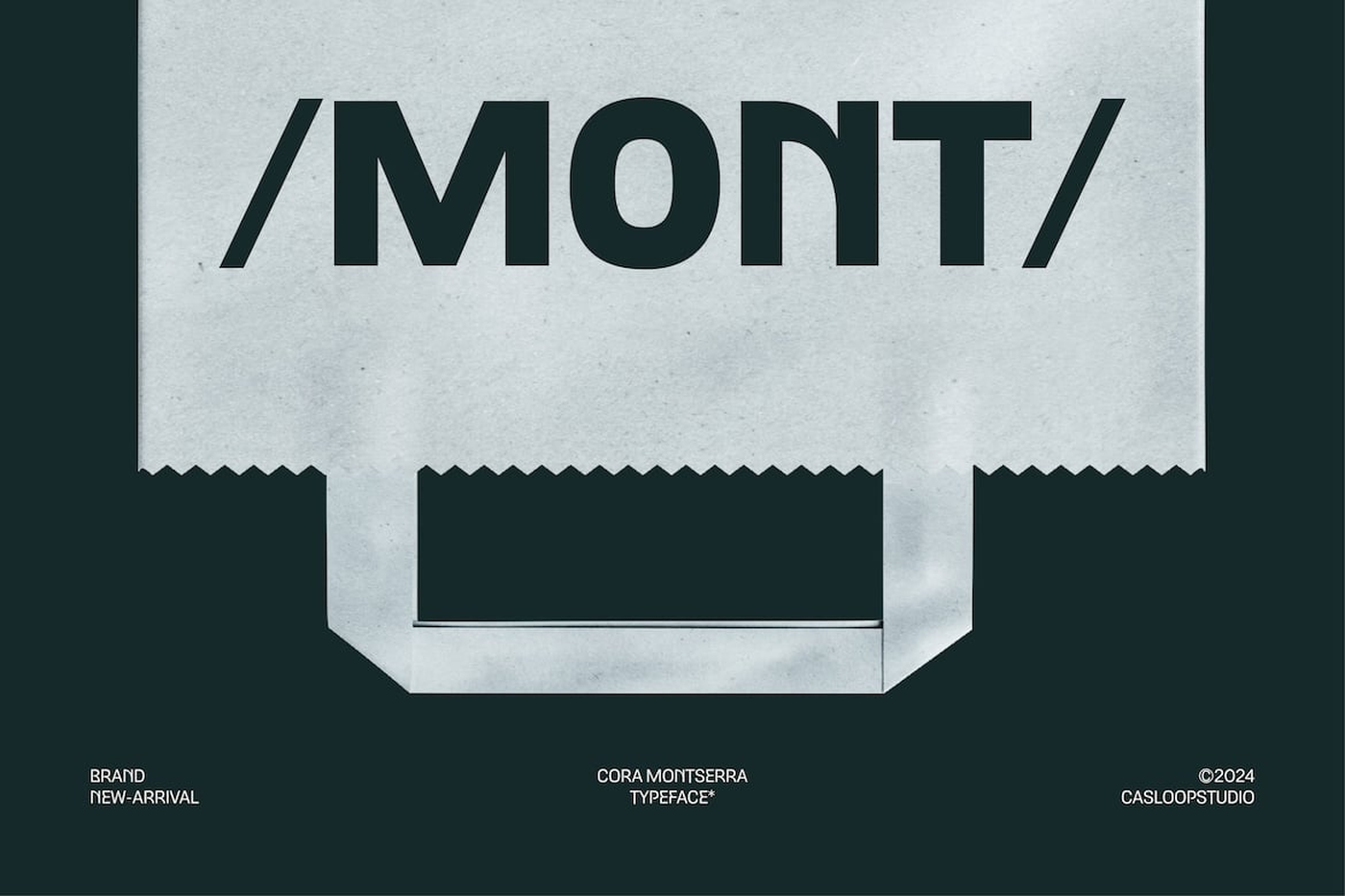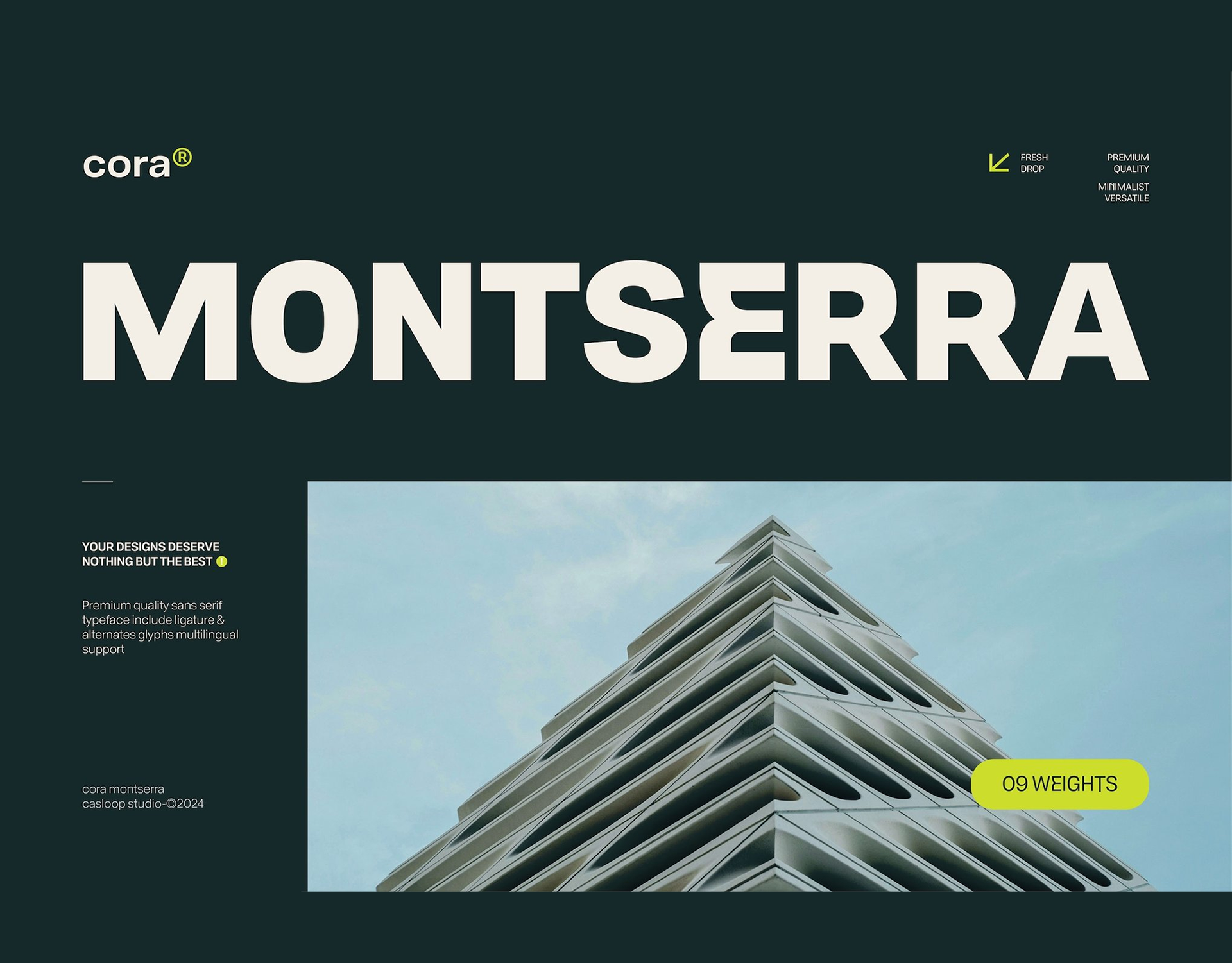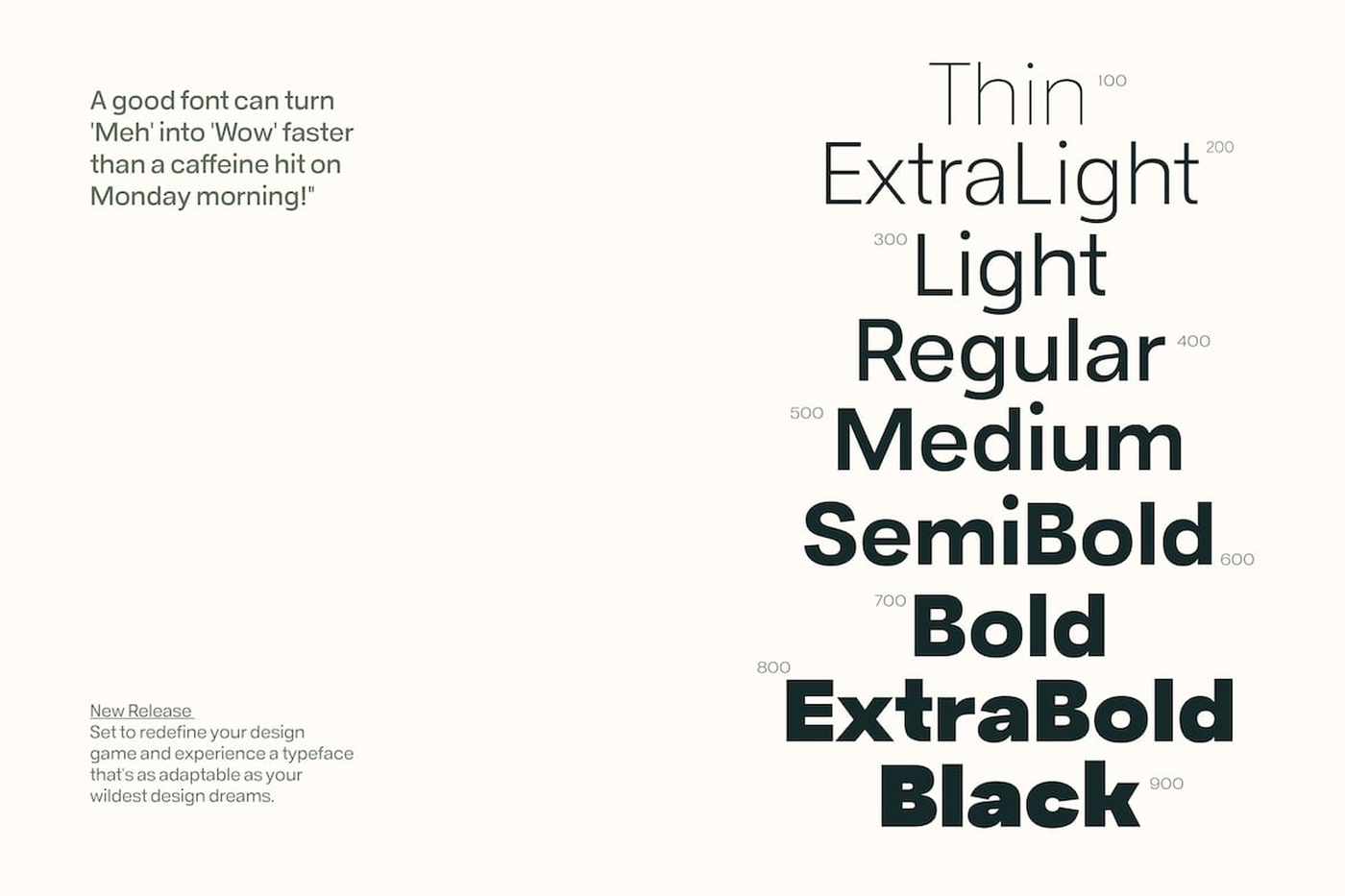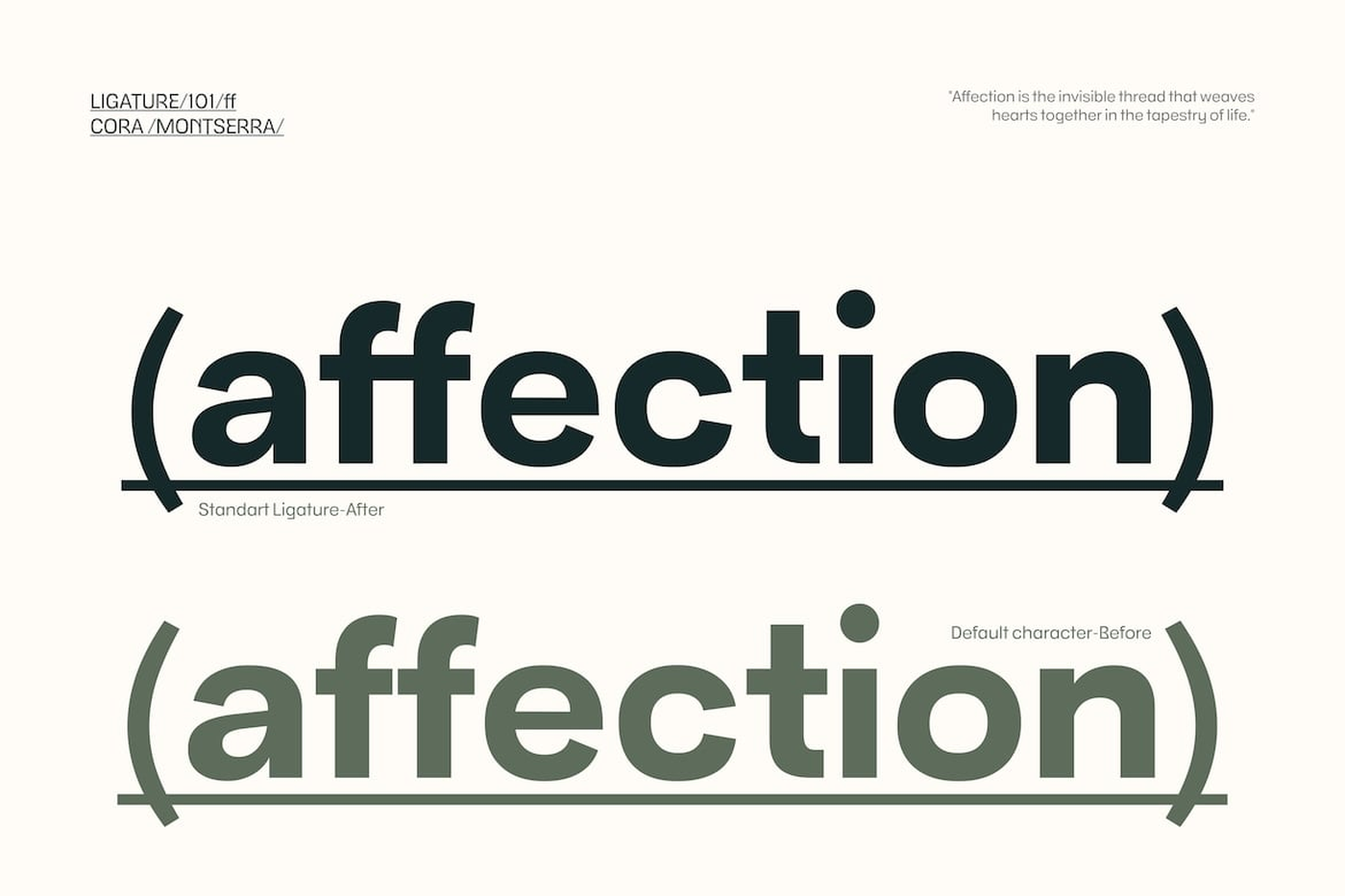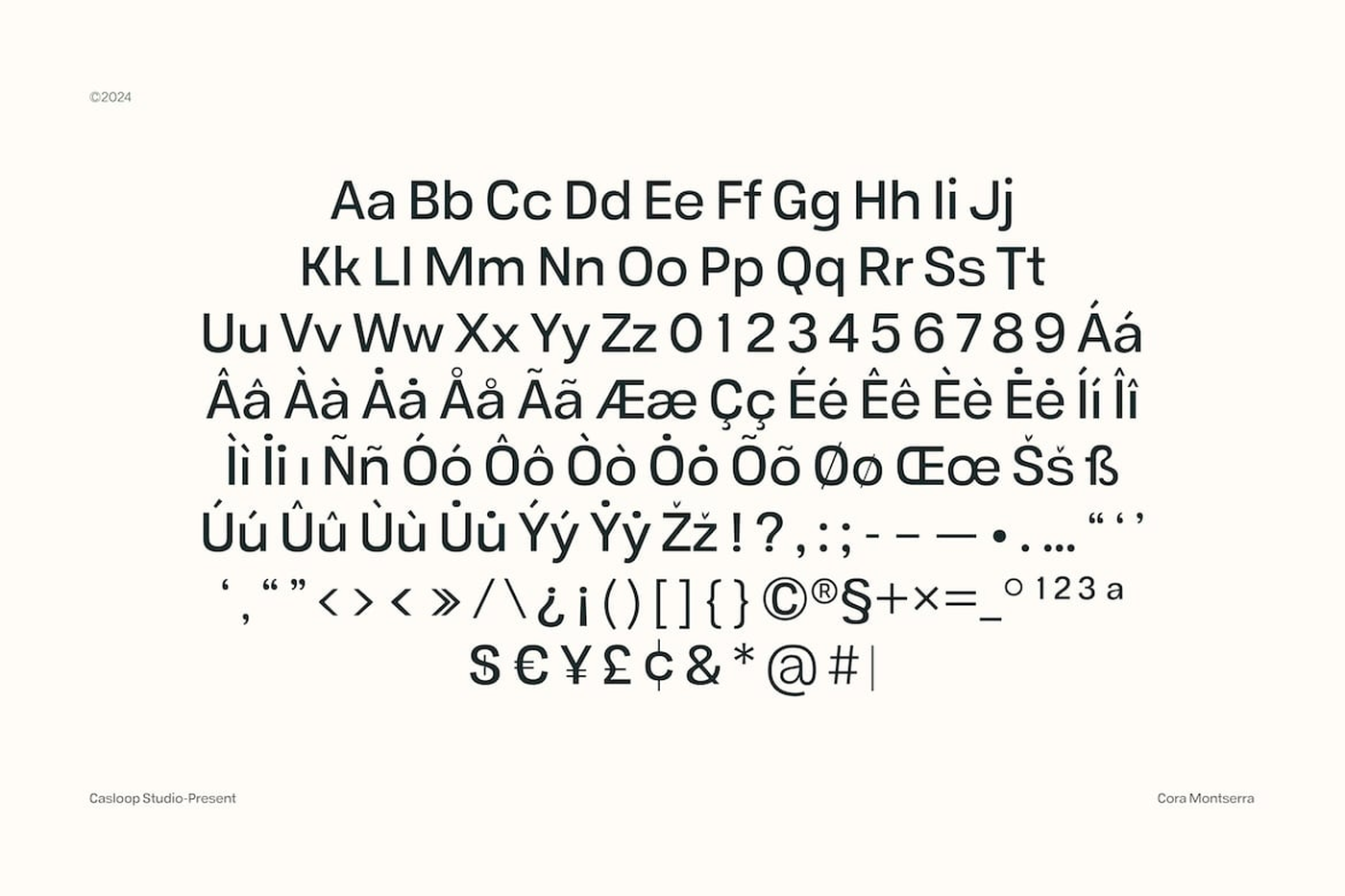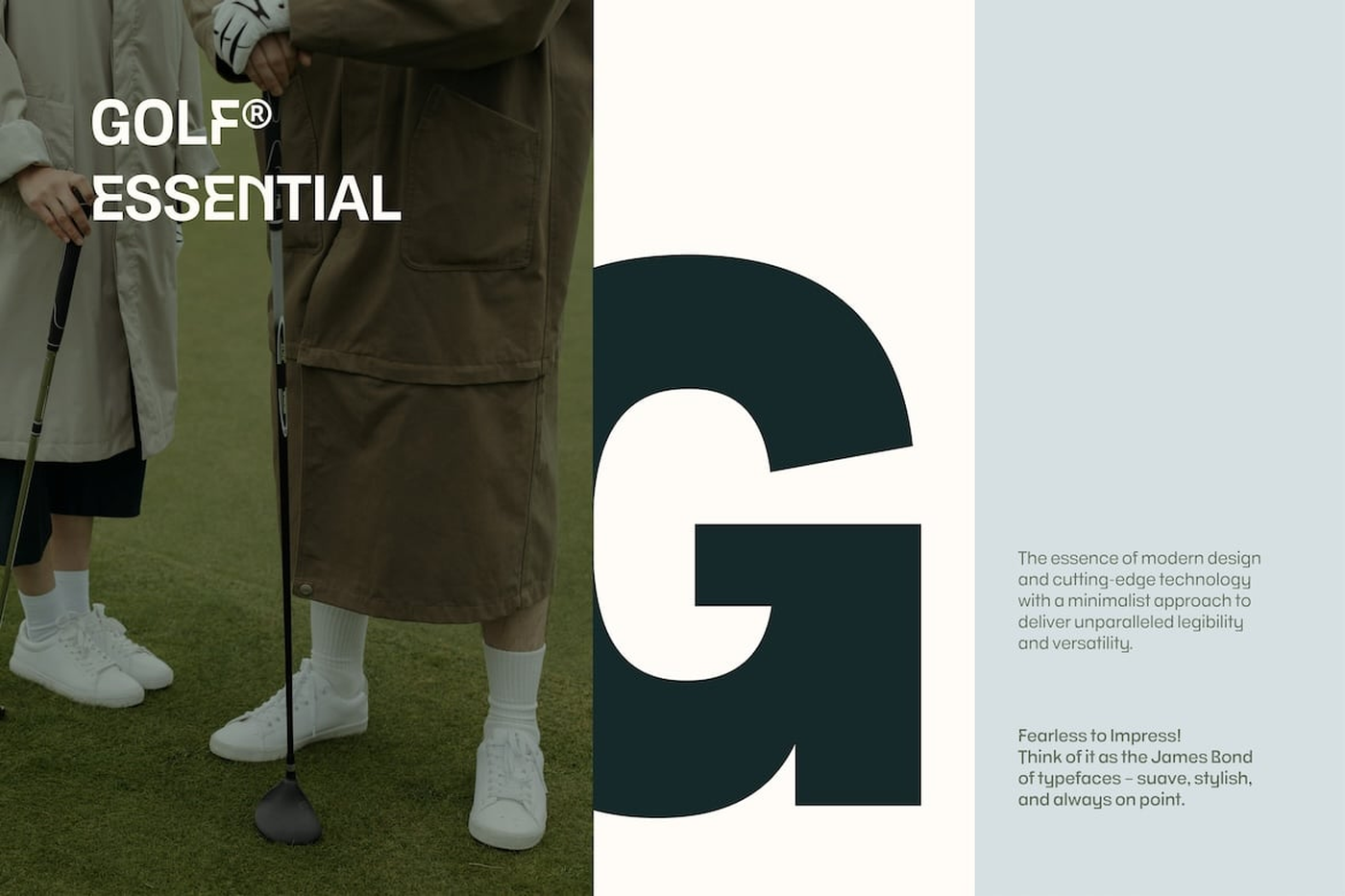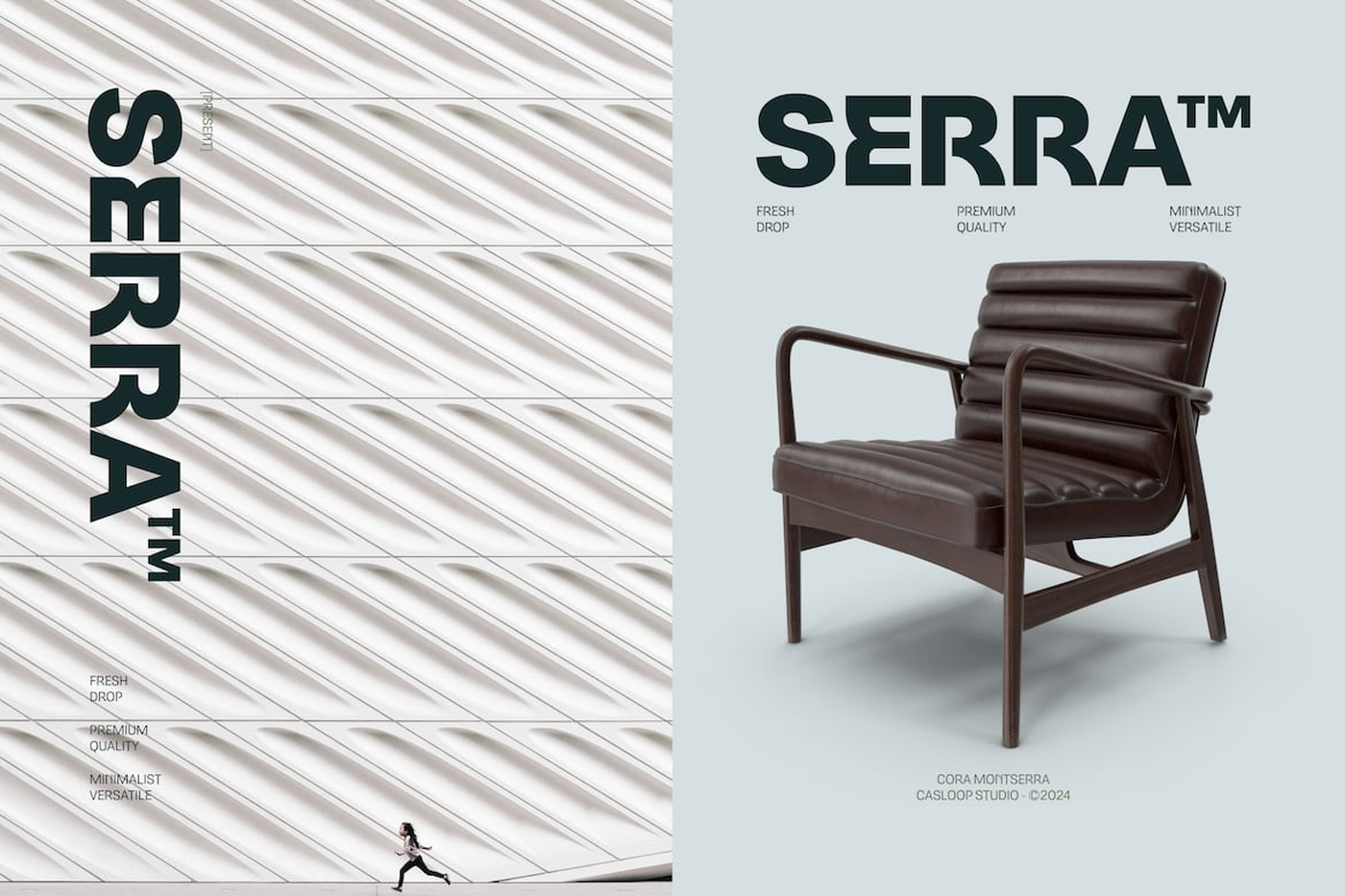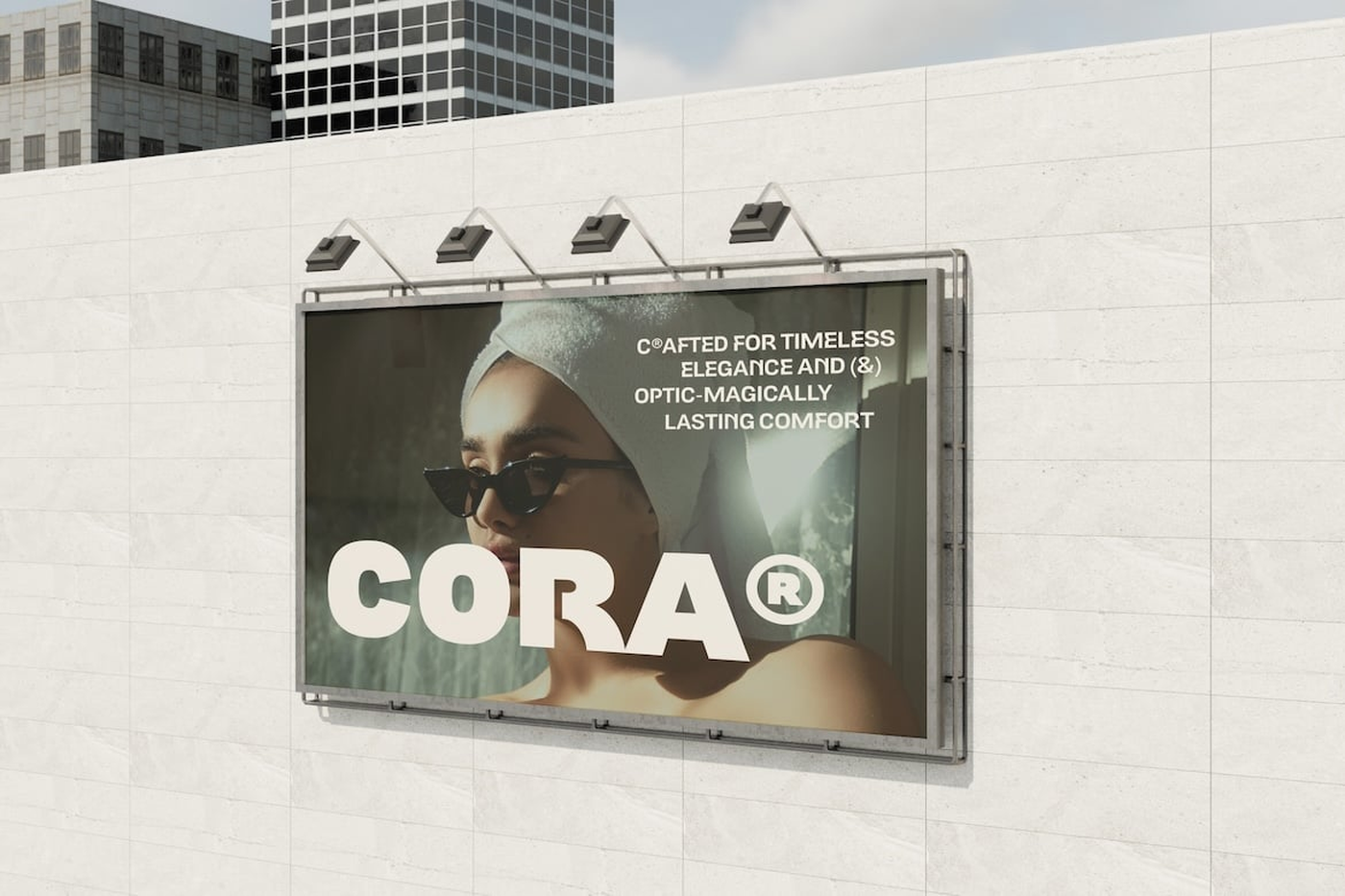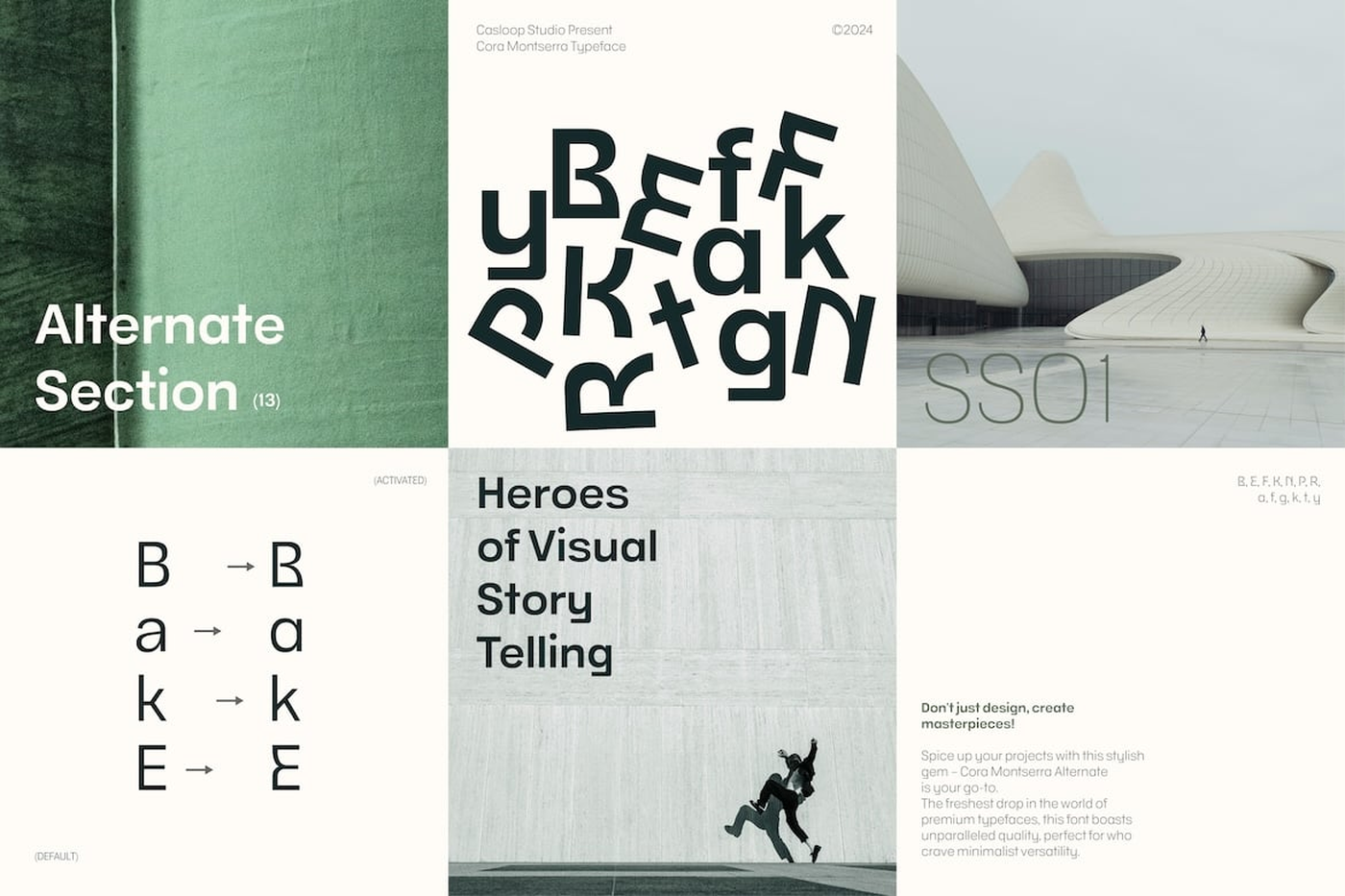
Cora Montserra - Corporate Grotesk Font
Cora Montserra - Corporate GroExperience the sophistication of Cora Montserra, a modern, premium typeface crafted to meet the needs of today's corporate and digital avenir media landscapes. Perfectly balancing technology and historical inspiration, this font delivers a professional and expressive touch to your projects. Cora Montserra sets itself apart with its distinctive uppercase characters, drawing inspiration from classic signage while embracing a minimalist, geometric sans-serif design. This combination ensures that your text stands out with clarity and elegance, whether used for branding, logos, or packaging. The font's large x-height, short descenders, and wide apertures guarantee high legibility, even in smaller sizes, making it ideal for both print and digital applications.